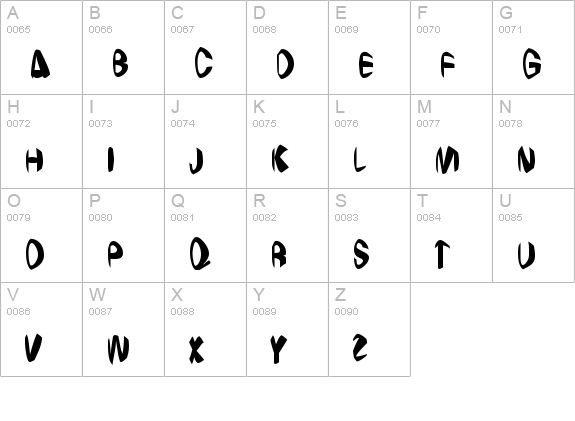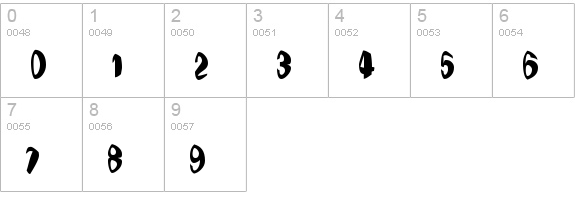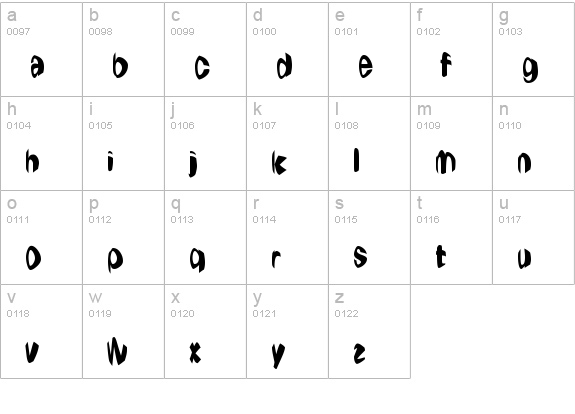
WeirdoCrunched Regular Font Details
WeirdoCrunched Regular is the standard, neutral variant in the WeirdoCrunched typeface family \xE2\x80\x94 well suited to general body text, paragraphs, and standard typographic work.
WeirdoCrunched Regular font is a unique and eccentric typeface that will make your designs stand out from the crowd. Its quirky and distorted letterforms add a touch of whimsy and playfulness to any project. Whether you're designing a poster, logo, or website, WeirdoCrunched Regular is sure to make a statement. This font features a crunched and compressed design, giving it a distinct and edgy look. Each letter has been meticulously crafted to create a harmonious balance between the irregular shapes and legibility. The uneven spacing and irregular strokes add a sense of movement and energy to your text, making it visually captivating. WeirdoCrunched Regular is not only visually appealing but also highly versatile. It works well in both large and small sizes, making it suitable for a wide range of applications. From headlines to body text, this font will add a touch of quirkiness and character to your designs. The best part is, WeirdoCrunched Regular font is available to download for free at FontsMarket.com. You can easily access and start using this font in your projects without any hassle. With its freely available download, you can add a unique and playful touch to your designs without breaking the bank. So why wait? Download WeirdoCrunched Regular font today and let your creativity run wild. Create eye-catching designs that will leave a lasting impression on your audience. Don't miss out on this opportunity to add a touch of weirdness and charm to your projects. Get WeirdoCrunched Regular font now, available for free at FontsMarket.com.